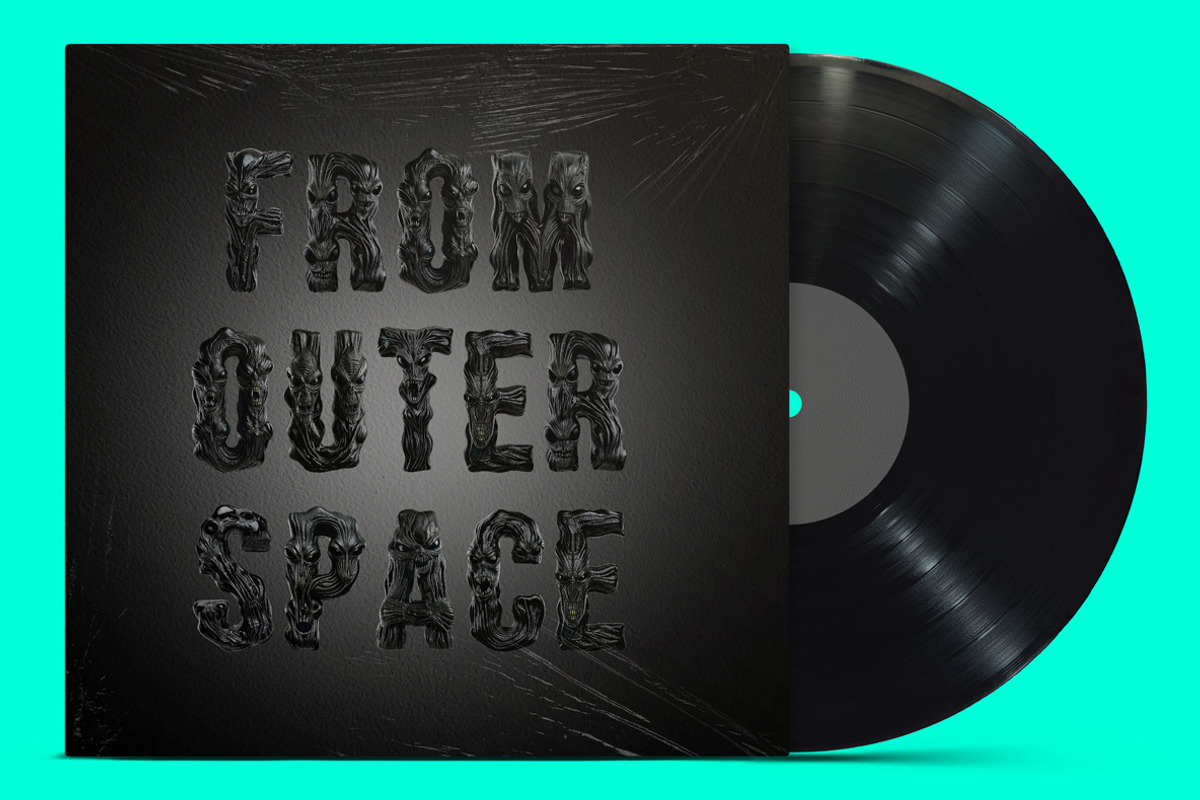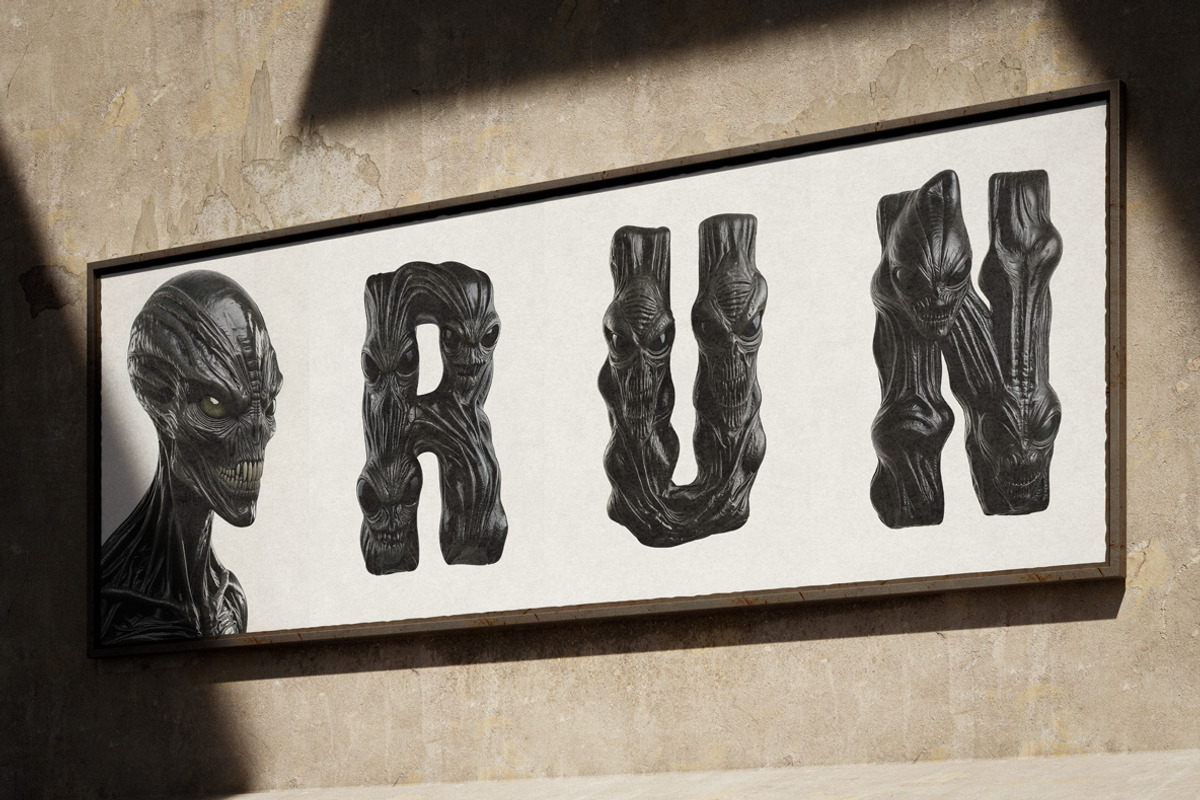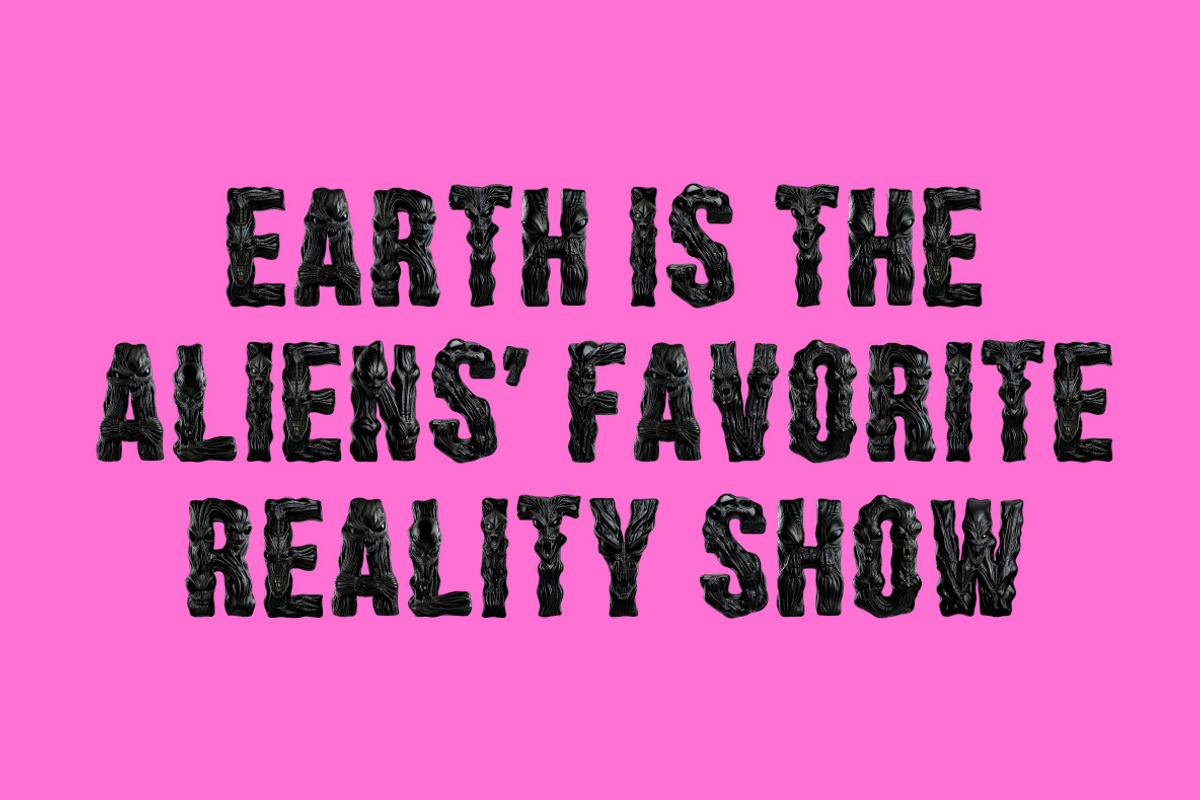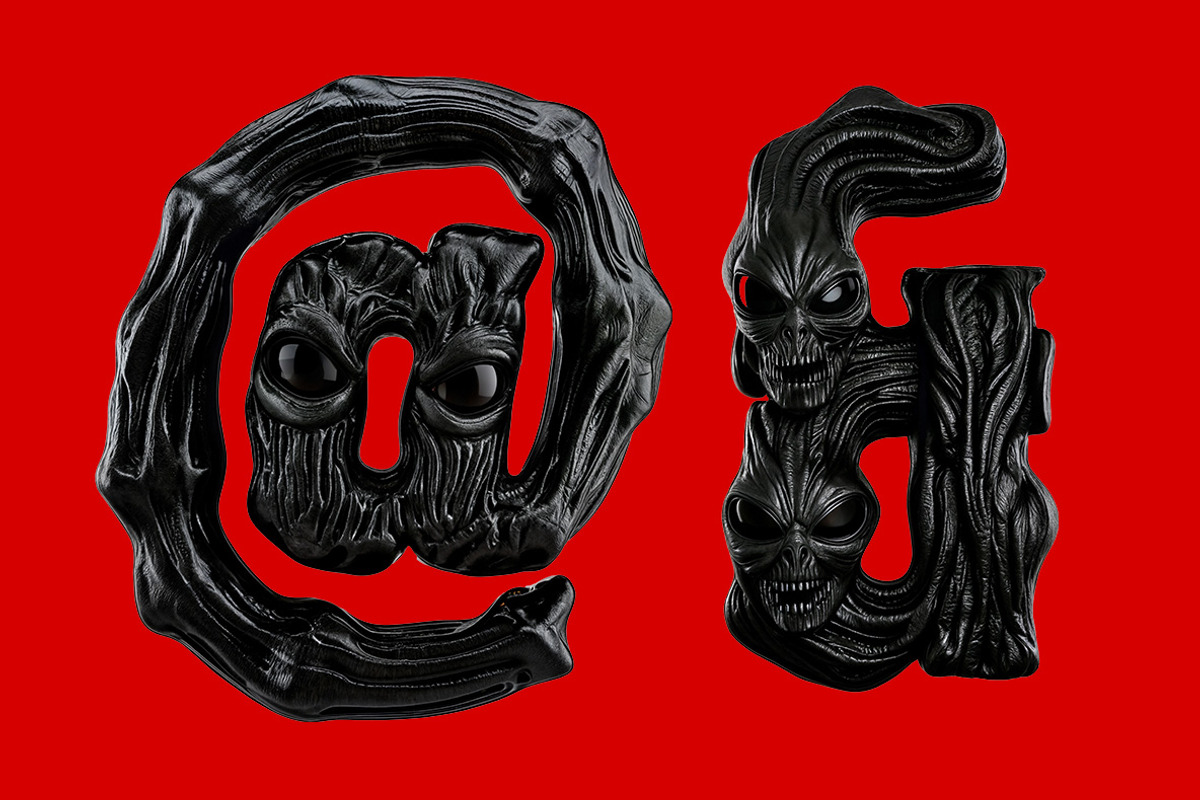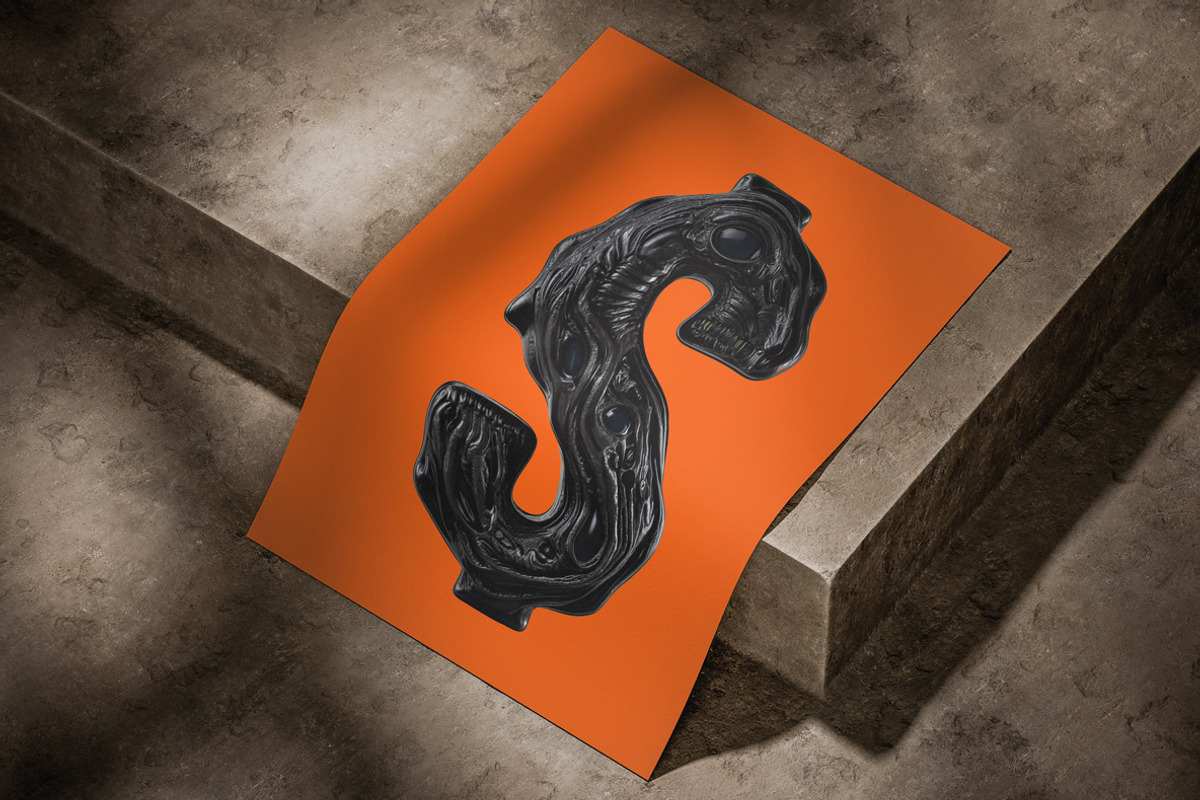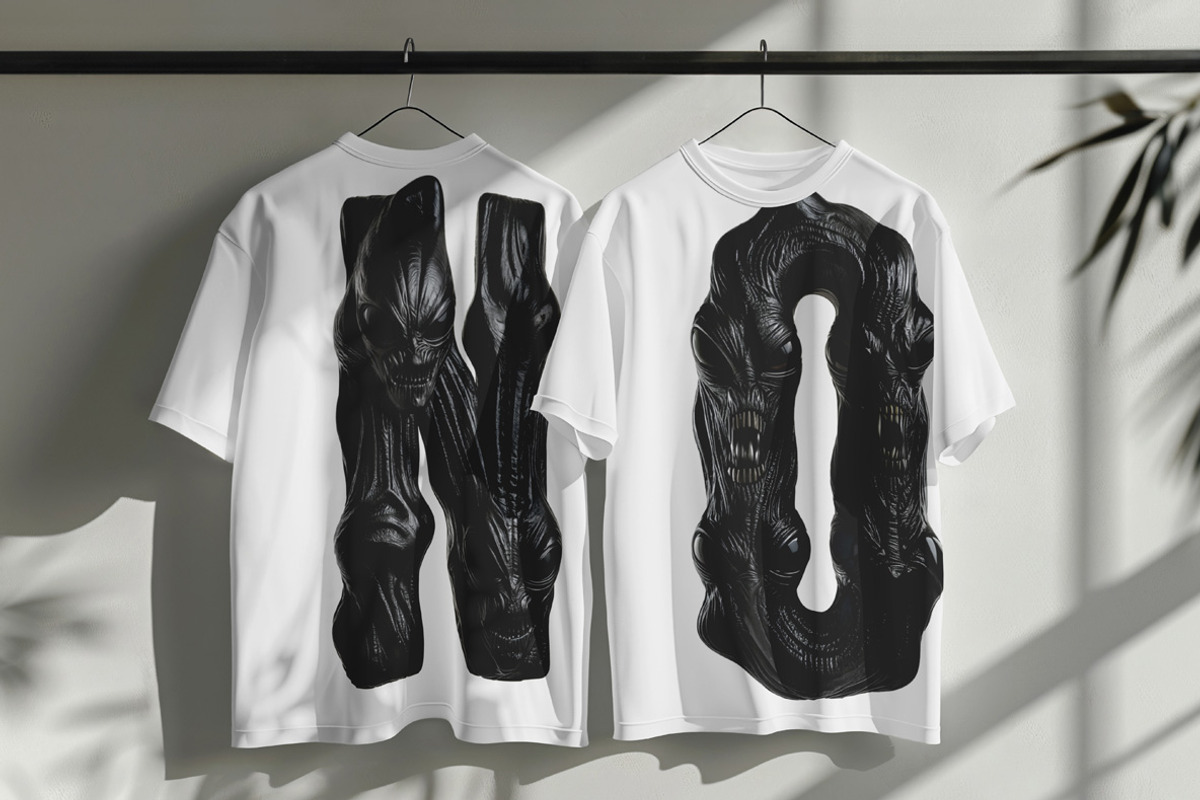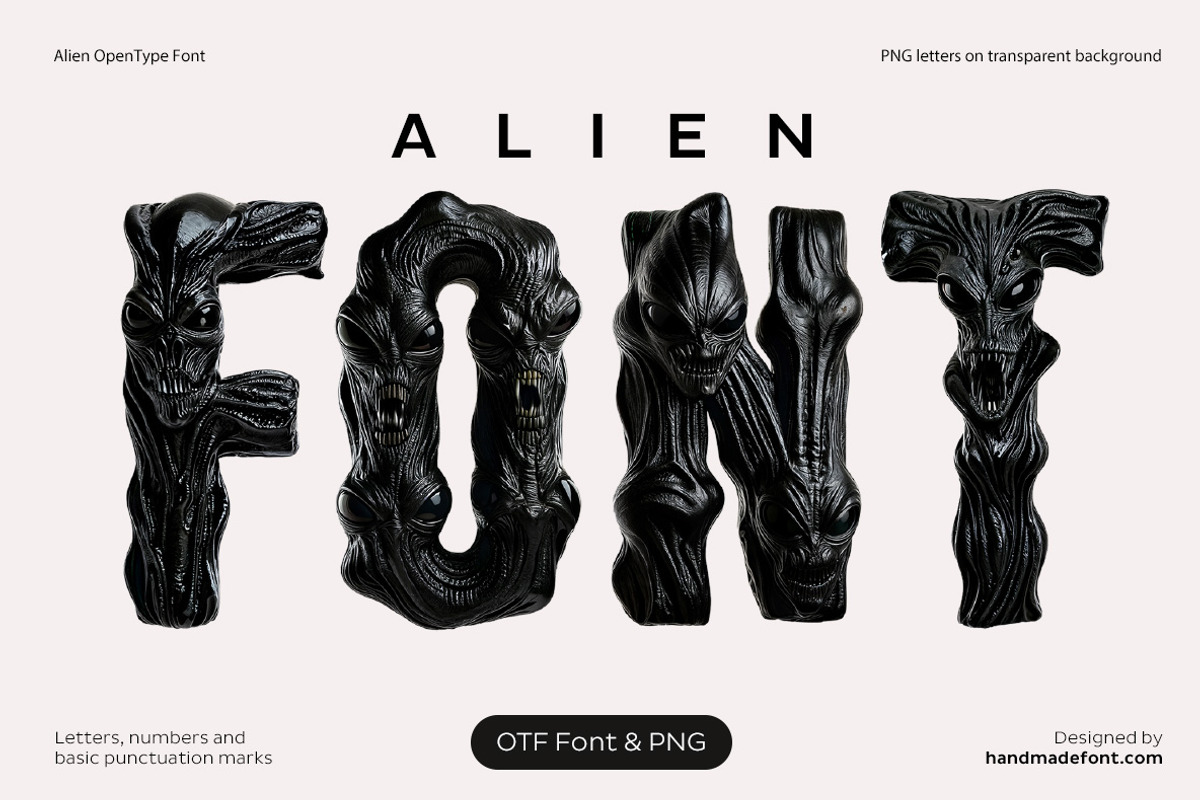
Alien Font
Space just got a whole lot creepier with Alien Font—where every letter feels like it crawled out of an extraterrestrial nightmare. This isn’t your average alien typography—it’s a full-blown intergalactic invasion of alien lettering with twisted roots, sinewy flesh, and faces so menacing they could scare a UFO off course. Each character glares back at you with ominous eyes and razor-sharp teeth, as if the alien alphabet itself might bite. Perfect for horror, sci-fi, or just making your text look like it escaped a cosmic monster’s diary. It’s weird, it’s wild… it’s unidentified font objects at their finest!
A high definition OpenType Font. Contains uppercase characters, numerals and basic punctuation. (Draw height roughly 800 pixels). All letters and glyphs that comprises this font you can see on the preview.